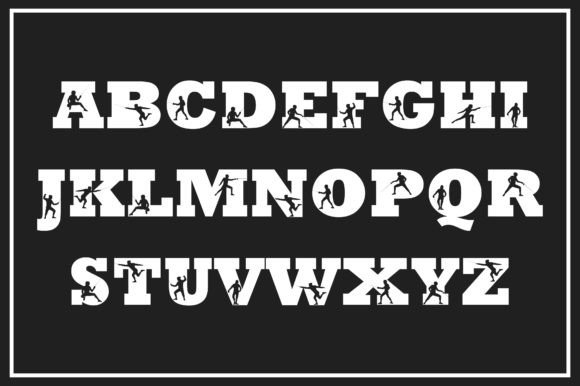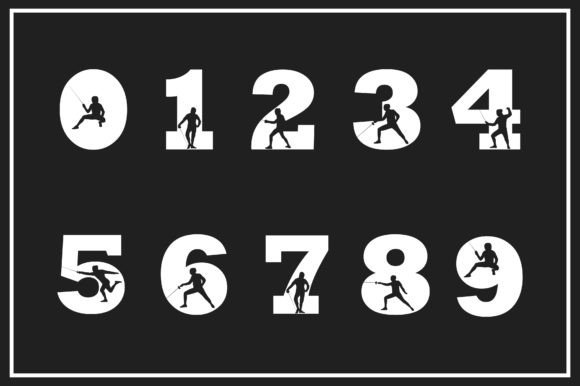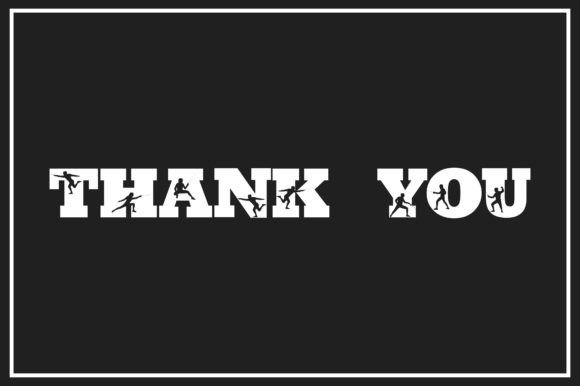
Introduction to Fencing Font
Fencing is a fun and dynamic decorative display font.
It is perfectly suitable for any design or crafty idea Add it confidently to your projects and you will love the results.
Key Features of Fencing Font
Why Choose Fencing Font?
Fencing Font offers exceptional quality and versatility, making it a valuable addition to your design toolkit. Whether you’re creating for personal projects or commercial use, Fencing Font delivers professional results.